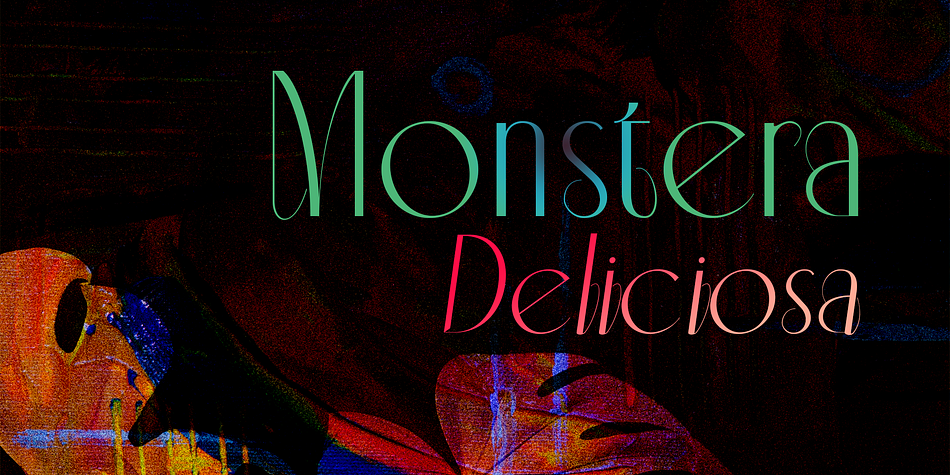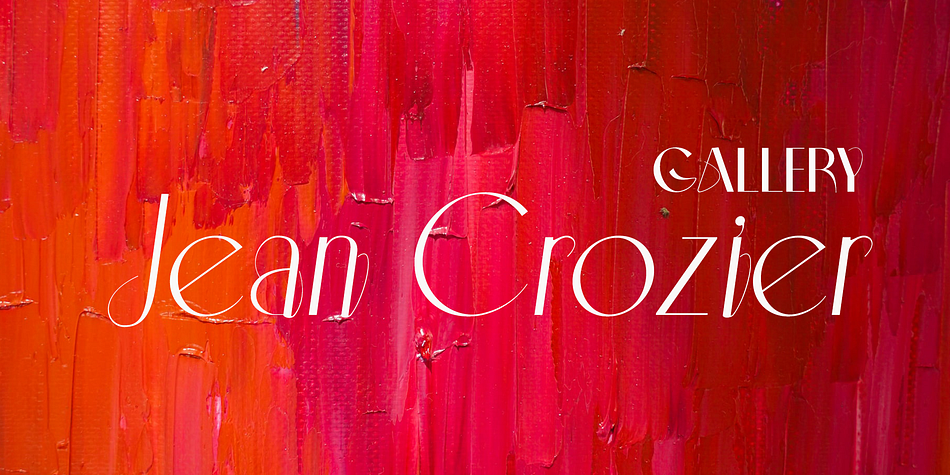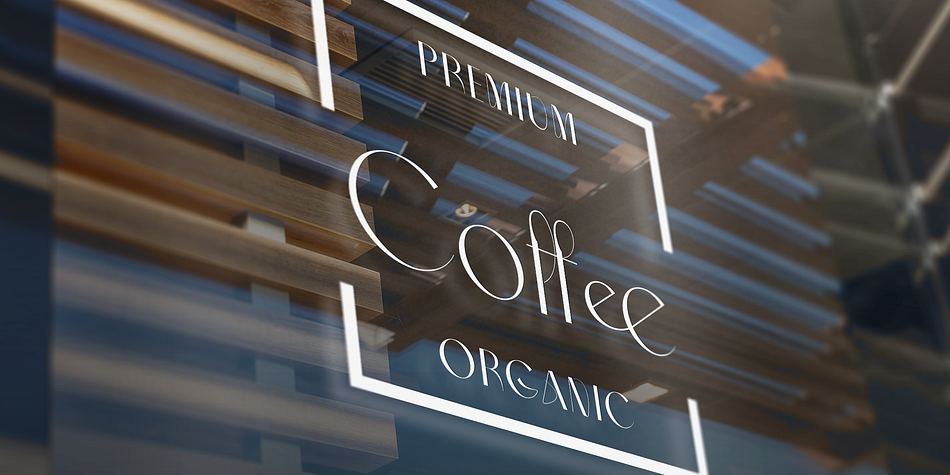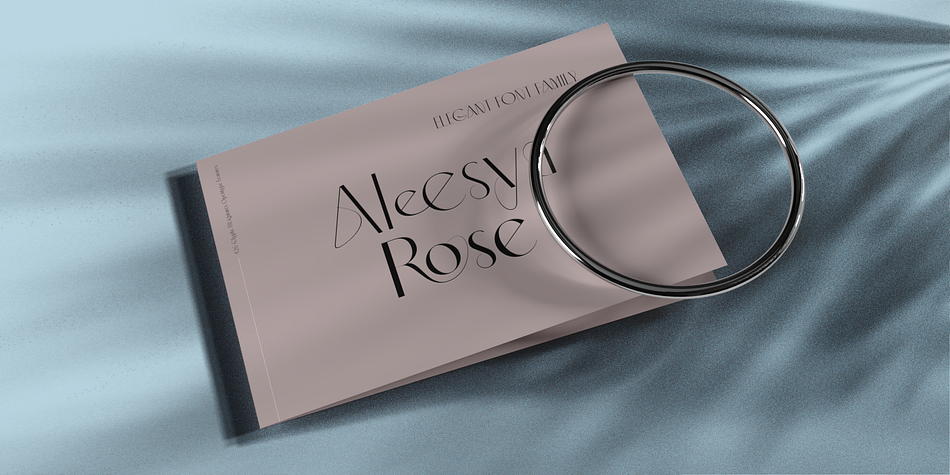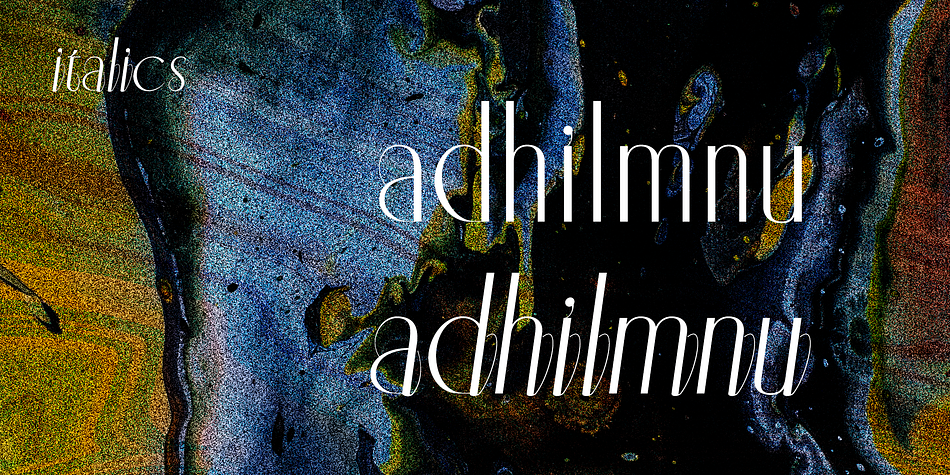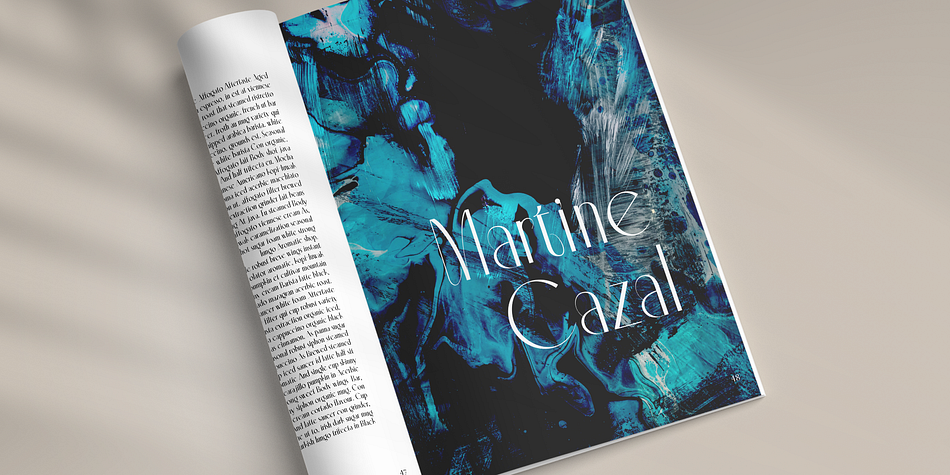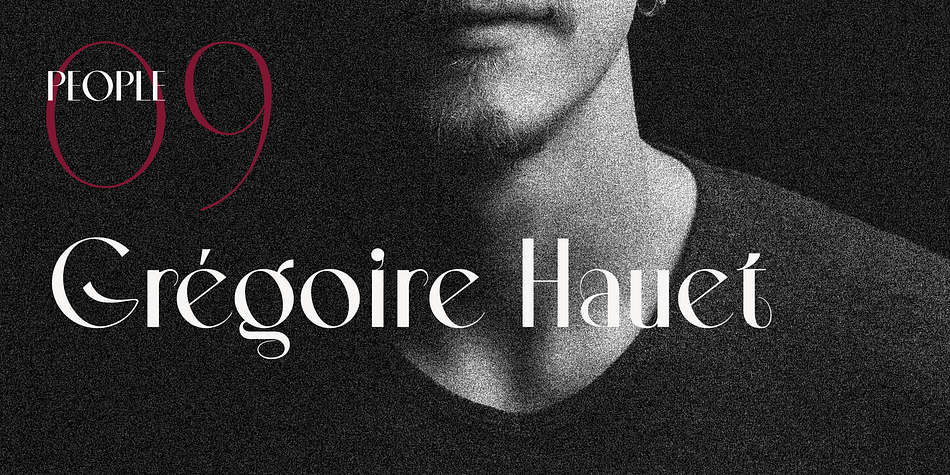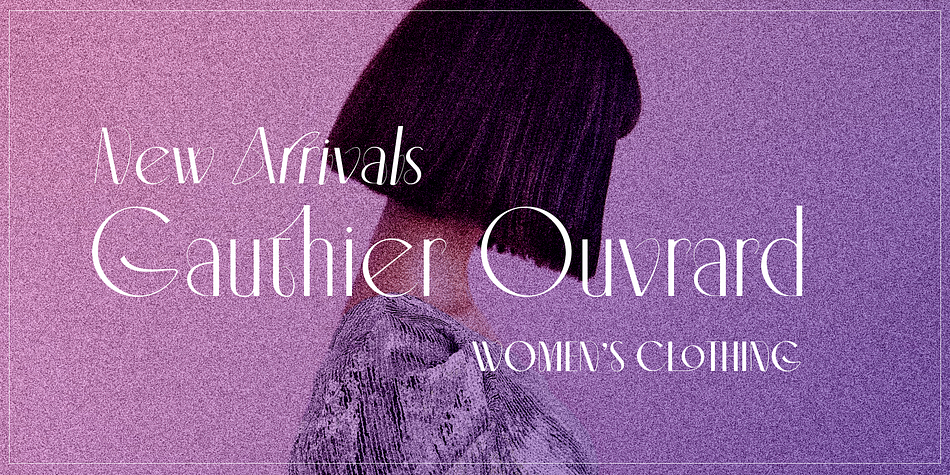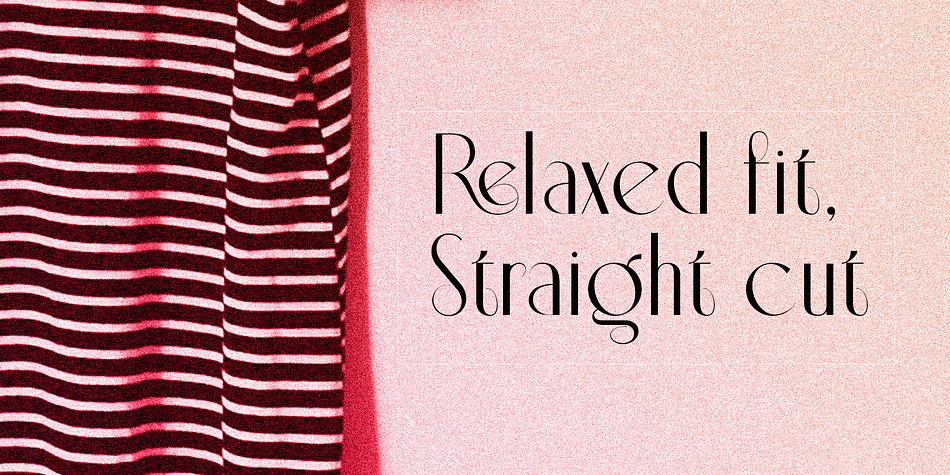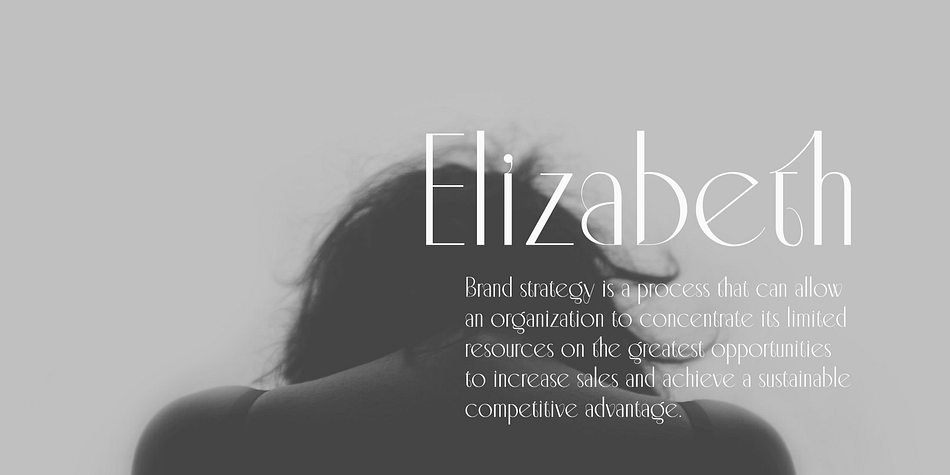
Aleesya Rose is a display sans font family. This typeface has fourteen styles and was published by Brenners Template.
Aleesya Rose is a Stylish Font Family to bring a touch of elegance to any design.
The clear contrast blends into all styles - even thin styles - and the strong individuality by weight delights the designer’s imagination.
14 styles including 7 weights and italics are essential for designers to complete more detailed and sophisticated typography.
This style has 426 glyphs each, check the glyph window in your app.
The upright standing of the vertical stems stably supports the center of gravity of the entire font.
And the thin strokes used as finishing touches will convey an elegant personality to the layout.
The ligatures are designed to appeal to the reader with their beautiful tenderness, and they are:
Ba, Be, Ha, He, LO, Le, Lo, Re, Ro, ck, de, do, ee, ff, fi, oo, rr, th.
In particular, we recommend that you choose this font family to achieve the following purposes: Editorial design, Personal branding, Branding business, logo design, portfolio, and any special design.